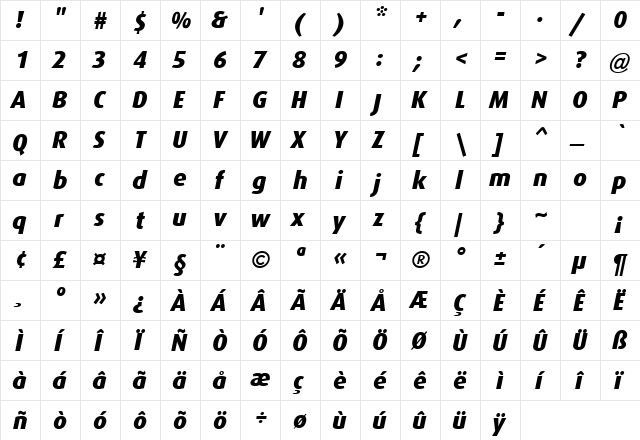
Dax-ExtraBoldItalic Regular Font Preview
Design Context for Dax-ExtraBoldItalic Typeface
Dax-ExtraBoldItalic offers clean, dependable letterforms without strong stylistic allegiance, making it a practical choice for designers who need flexibility. Its italic angle brings a sense of urgency and motion to the letterforms. The heavy weight commands attention and anchors typographic hierarchies.
Pro Tip: Use Dax-ExtraBoldItalic for emphasis, pull quotes, and subheadings where its slanted energy can add rhythm to the layout.